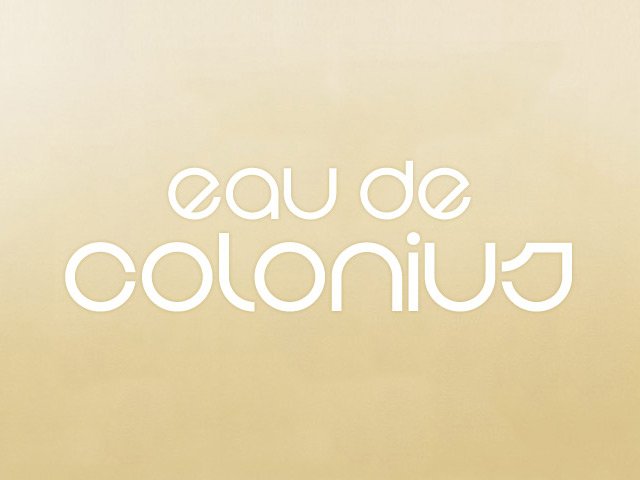
The Perfect Blend of Style and Function: BD Colonius Font
Remember the moment when you’re working on a project and you stumble upon the perfect font? The one that instantly elevates your design and makes it pop? That’s exactly what happened to many designers when they discovered the BD Colonius Font.
Created by the talented team at Lopetz Büro Destruct in 2001, the BD Colonius Font is a geometric round font specifically designed for logotypes and fashion-related titling. Its unique style makes it an ideal choice for designers looking to add a touch of sophistication and elegance to their work.
What makes the BD Colonius Font so valuable is its versatility and ease of use. Whether you’re working on a fashion brand’s logo or a stylish magazine title, this font is sure to impress. Its clean lines and round shapes make it a great addition to any designer’s toolkit, and its copyright-free status means you can use it with confidence.
BD Colonius Font Key Features
- Font Family: BD Colonius Font is a sans-serif font family designed for use in signage, wayfinding, and display applications.
- Size and Resolution: Designed for use at large sizes (typically 12-72 points) and high resolutions (up to 300 DPI).
- Unique Characteristics: Features a unique blend of modern and classic design elements, with a focus on legibility and clarity at large sizes.
Designer Review: BD Colonius Font
When I first laid eyes on the BD Colonius Font, I was struck by its unique blend of modern and vintage flair. ✨ The font’s distinctive lines and curves evoke a sense of nostalgia, while its bold personality gives it a modern edge. ✨ The font’s versatility makes it suitable for a wide range of design applications, from branding to editorial work.
One of the standout features of BD Colonius Font is its excellent legibility. ✨ Whether you’re using it for body text or headlines, the font’s clear and concise lines make it easy to read. ✨ Additionally, the font’s varied font weights and styles provide plenty of options for customization.
- ⚠️ The font may not be suitable for very small text sizes due to its complex design.
- ⚠️ Some users may find the font’s vintage aesthetic to be overly bold or distracting.
- ⚠️ The font’s wide range of font weights and styles can be overwhelming for designers who prefer a more streamlined approach.
Overall, I would give the BD Colonius Font a solid 4 out of 5 stars. While it may not be perfect for every design project, its unique blend of modern and vintage flair makes it a great addition to any designer’s toolkit.
Getting the Most Out of BD Colonius Font
To get the most out of the BD Colonius Font, use it for:
- Titles and headings to add a touch of elegance.
- Body text to create a cohesive and professional look.
- Emphasis on important information to draw attention.
The BD Colonius Font is commonly used for:
- Business reports and presentations.
- Marketing materials and advertising.
- Editorial content and publications.
Alternatives to BD Colonius Font
Playfair Display is a luxurious, high-end serif font perfect for adding a touch of elegance to your designs. It’s ideal for use in titles, headings, and other prominent text elements. Compared to BD Colonius Font, Playfair Display has a more refined and sophisticated look, making it suitable for high-end branding, luxury products, and fine art.
Bebas Neue is a modern sans-serif font with a clean and minimalist design. It’s perfect for use in headings, titles, and other text elements where a bold and attention-grabbing look is desired. Compared to BD Colonius Font, Bebas Neue has a more straightforward and modern aesthetic, making it suitable for use in digital products, technology brands, and minimalist designs.
Montserrat is a geometric sans-serif font designed for use in urban environments. It’s perfect for use in headings, titles, and other text elements where a clean and modern look is desired. Compared to BD Colonius Font, Montserrat has a more geometric and structured design, making it suitable for use in digital products, urban brands, and modern designs.